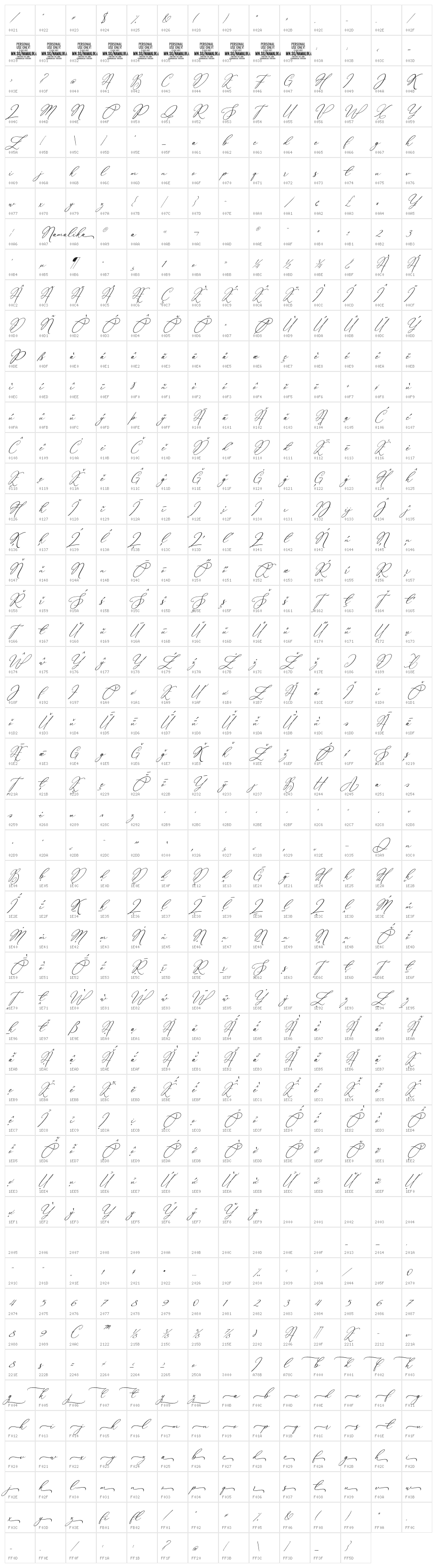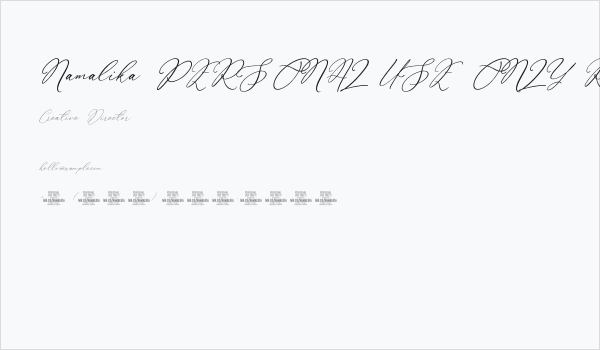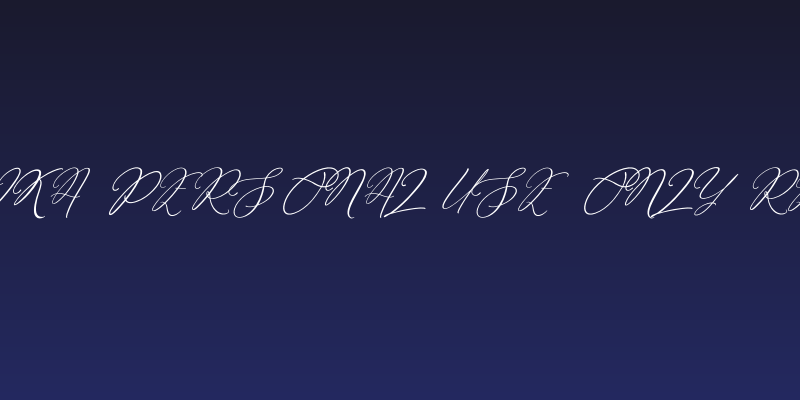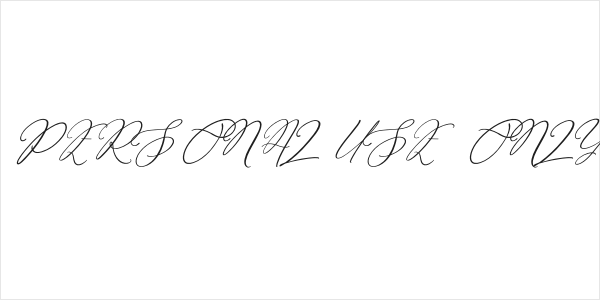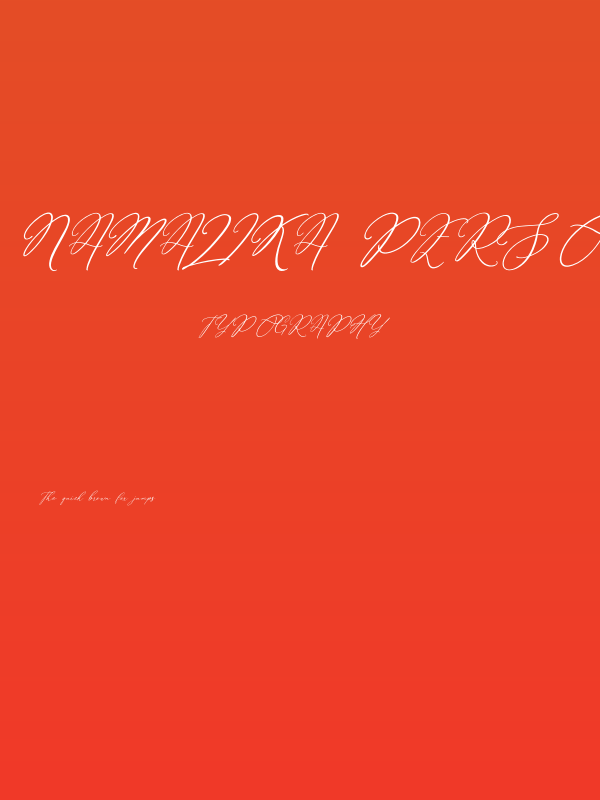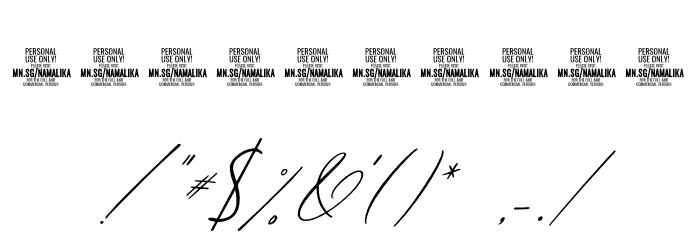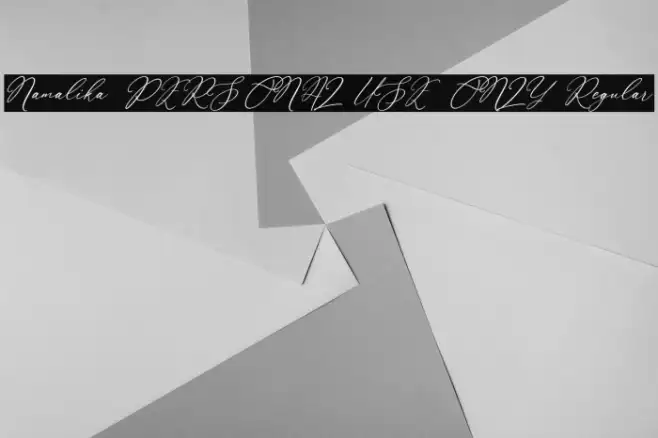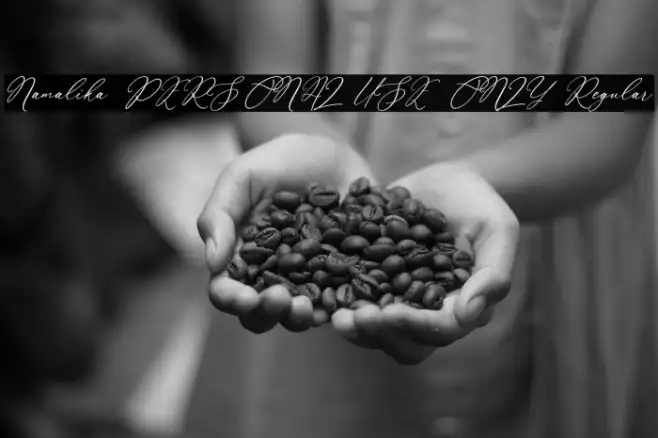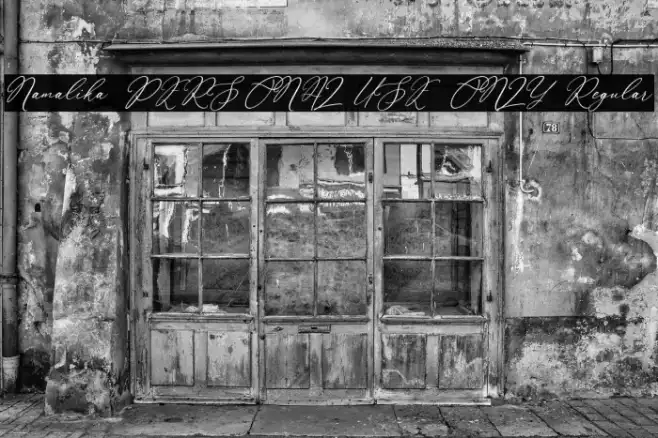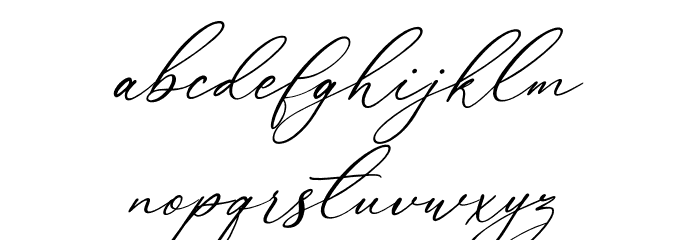
Namalika PERSONAL USE ONLY Regular Font
Namalika PERSONAL USE ONLY Regular Description
This elegant script font features flowing, cursive letterforms with a sophisticated and artistic flair. The uppercase letters are intricately designed with sweeping curves and delicate loops, giving a sense of fluidity and grace. The lowercase characters maintain a consistent style, complementing the uppercase with their own subtle flourishes. The numbers and special characters are crafted to match the overall aesthetic, ensuring a cohesive look across all text. This font exudes a sense of elegance and refinement, making it ideal for projects that require a touch of class and sophistication.
| Categories | Script |
| Overall Style | Elegant |
| Use Case | Logos, Invitations, Branding |
| Proposed Projects | Ideal for wedding invitations, elegant branding, personal stationery, and upscale packaging. |